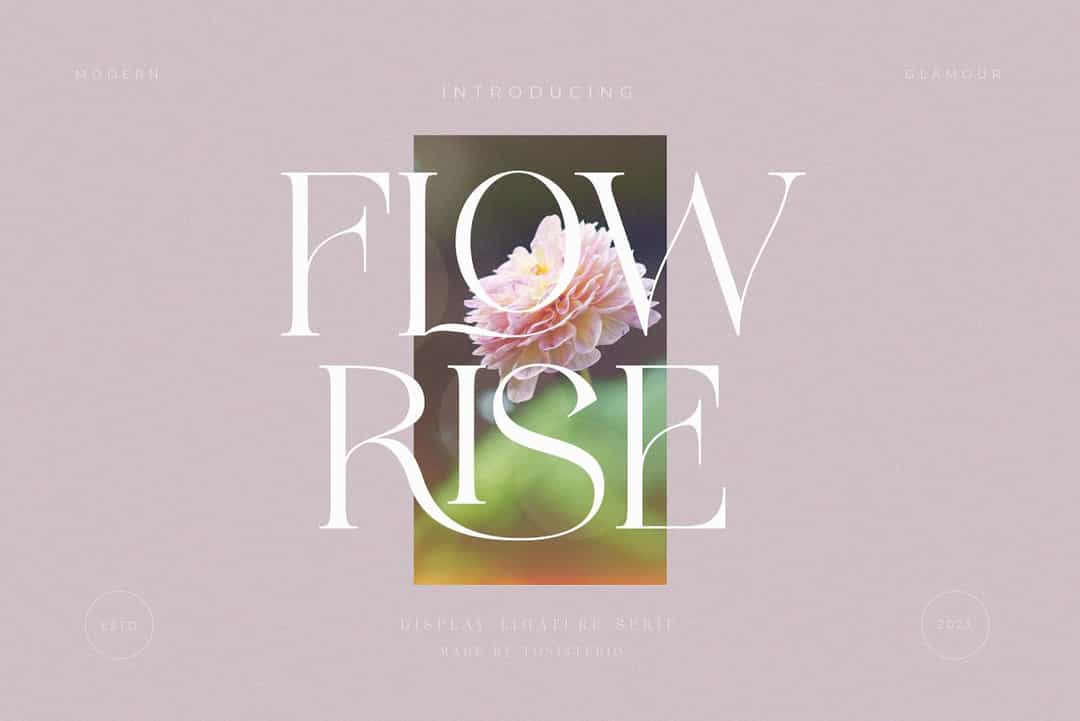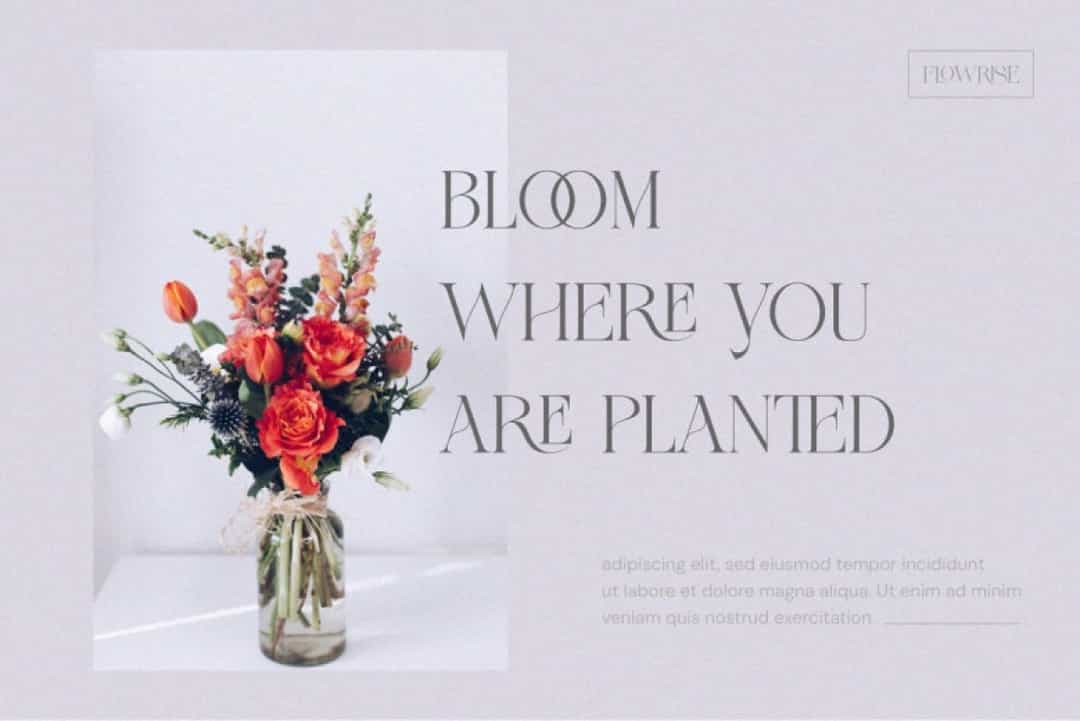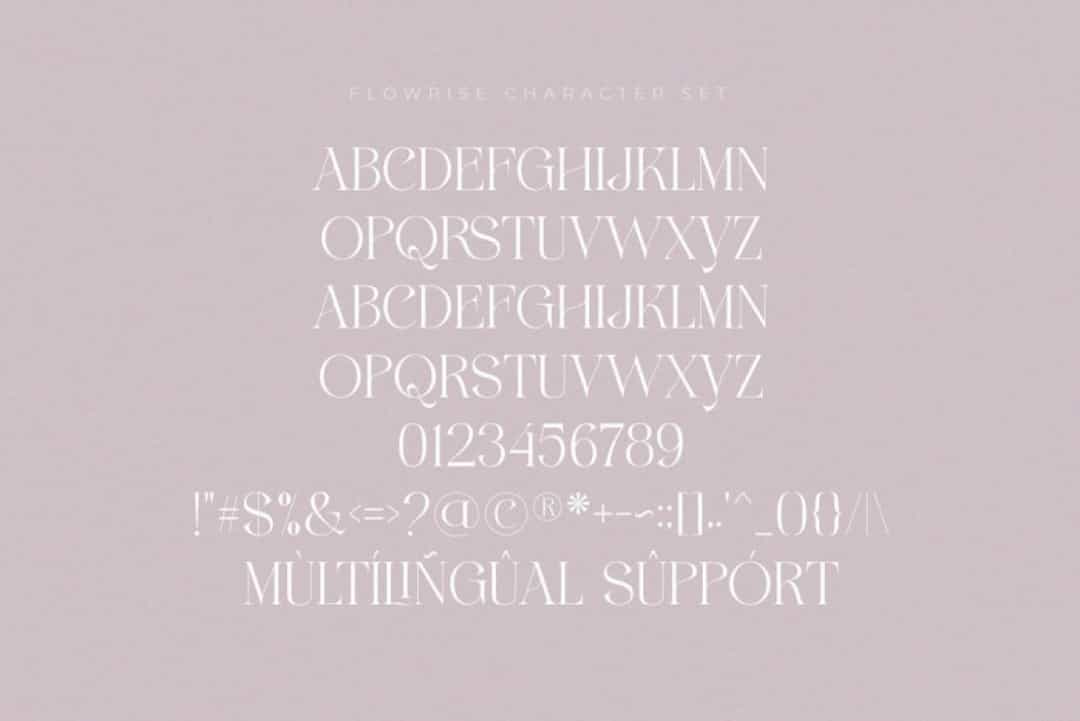
“FLOWRISE” is an elegant condensate serif font featuring graceful curves for an eye-catching design and luxurious aesthetic. Perfect for creating eye-catching logotypes, stunning magazines, titles branding projects and much more, FLOWRISE font is also an effective solution to complete multiple collection and binding projects with its many binding options.